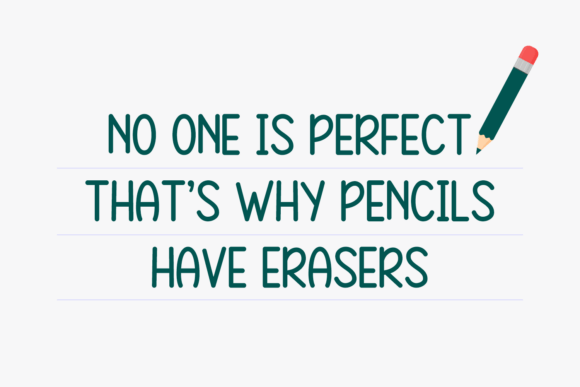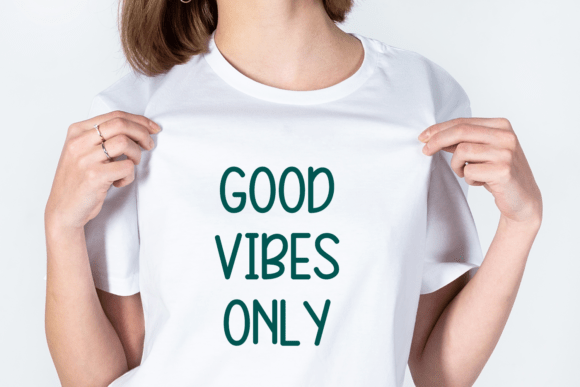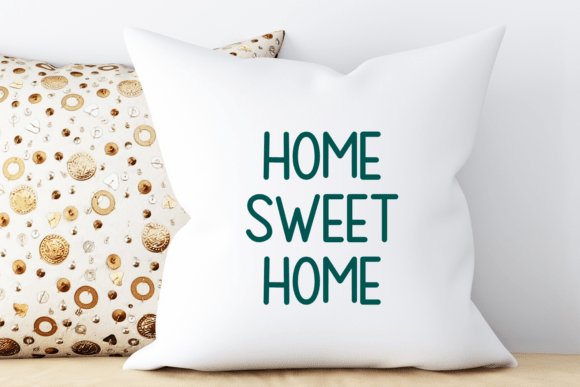
Introduction to Return School Font
Have you ever found yourself stuck in a design rut, struggling to infuse your project with the perfect blend of whimsy and sophistication? For designers seeking a reliable design resource that’s both high quality and free, the answer lies in the delightful Return School Font.
This charming sans serif font is more than just a pretty face – it’s a game-changer for creative projects that demand a unique touch. Whether you’re crafting a book cover, designing a T-shirt, or simply adding some personality to your social media posts, Return School Font is the perfect addition to your toolkit.
Key Features of Return School Font
- High-quality design resource suitable for creative projects, offering a unique and professional look.
- Features a clean and modern design, perfect for educational materials, websites, and other creative projects.
- Includes a wide range of glyphs and characters, making it suitable for various languages and applications.
Honest Review: Return School Font
As a designer, I’m always on the lookout for high-quality design resources to enhance my creative projects. Recently, I came across the Return School Font, which caught my attention with its unique style and versatility. In this review, I’ll share my honest thoughts on this font.
- ✨ The font’s clean and modern design makes it perfect for a wide range of creative projects, from brochures to website headers.
- ⚠️ The font may not be suitable for all types of projects, particularly those requiring a more formal or traditional tone.
- ⚠️ Some users may find the font’s style a bit too minimalist, which can make it difficult to read in certain contexts.
Overall, I’m impressed with the Return School Font’s quality and versatility. While it may not be perfect for every project, it’s an excellent addition to any designer’s toolkit. With its modern design, free download, and transparent background feature, it’s definitely worth considering for your next creative project.
The Return School Font is a high-quality design resource ideal for various creative projects. Its transparent background makes it versatile and easy to use in multiple applications.
The Return School Font is suitable for various creative projects, including:
- Logo creation
- Brochure and flyer design
- Website design
- Infographic creation
Alternatives to Return School Font
Great Vibes Font is a beautiful, elegant script font perfect for creative projects that require a high-end feel. It’s ideal for wedding invitations, branding, and other design resources where sophistication is key.
Great Vibes Font offers a similar feel to Return School Font, but with a more refined and polished appearance. It features a transparent background and a free download option, making it an excellent choice for designers looking for a high-quality alternative.
Alex Brush Font is a handwritten font that exudes a sense of warmth and personality. It’s perfect for design projects that require a touch of whimsy and playfulness, such as children’s books, greeting cards, and social media graphics.
Alex Brush Font shares a similar free-spirited feel with Return School Font, but with a more refined and elegant appearance. Its transparent background and free download option make it an attractive choice for designers seeking a high-quality design resource.
Is the Return School Font suitable for use on a transparent background?
Yes, the Return School Font is designed to be used on a transparent background. The font has a clear and crisp design that will not be affected by the background color or image. This makes it an ideal choice for designers who want to create visually appealing and professional-looking designs.